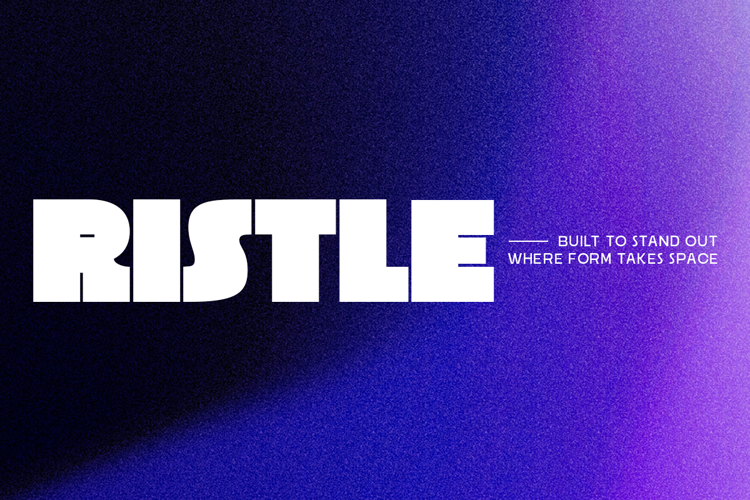
Ristle Font
Ristle is a bold modern display sans-serif font built for powerful visual communication. Featuring strong geometric construction, wide letterforms, and confident spacing, Ristle delivers a striking presence ideal for contemporary branding systems. Designed for maximum readability at large sizes, Ristle performs exceptionally in logos, headlines, posters, packaging, and digital branding environments where clarity and strength are essential.
Clean geometric construction